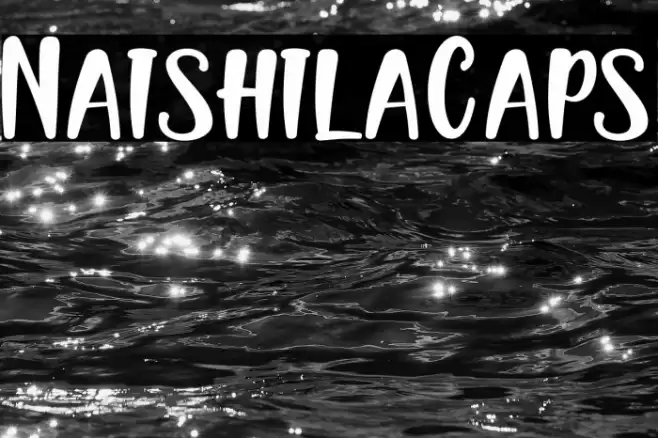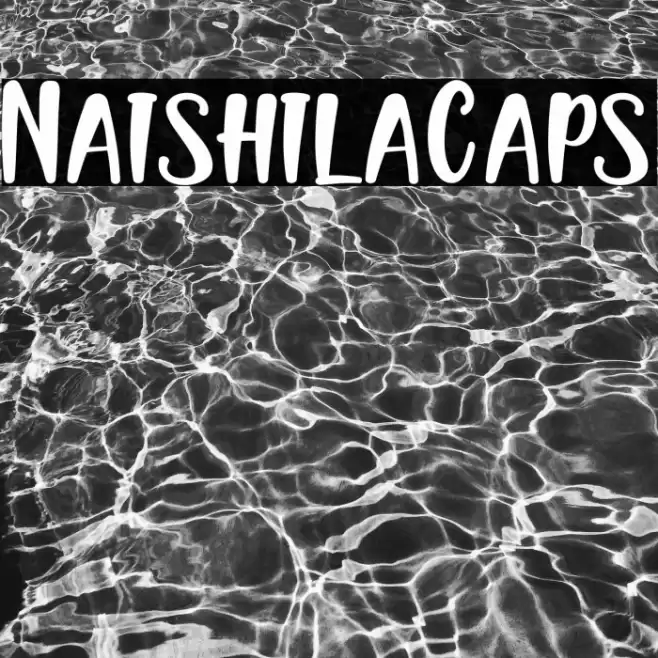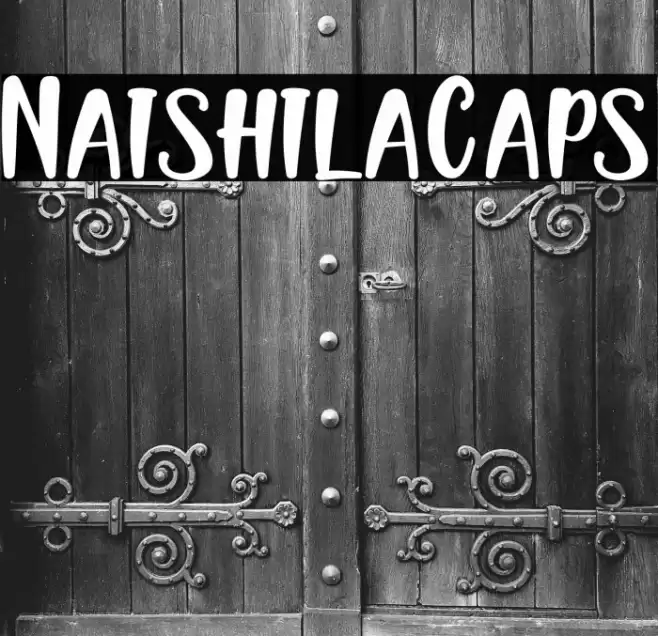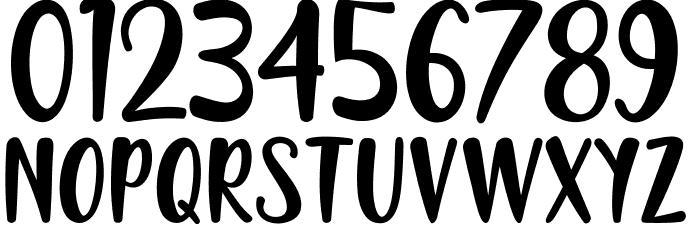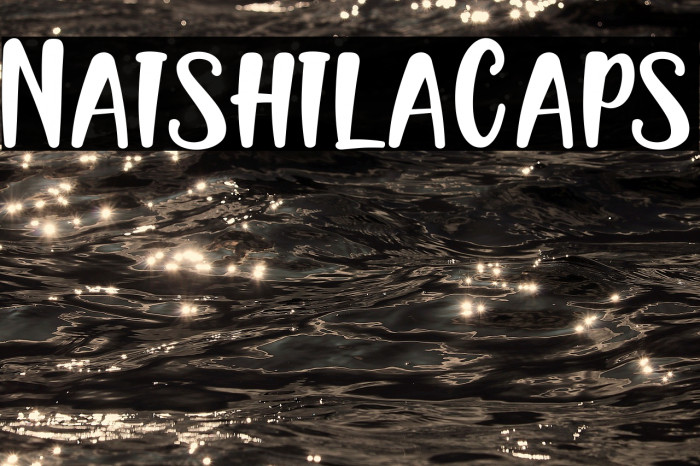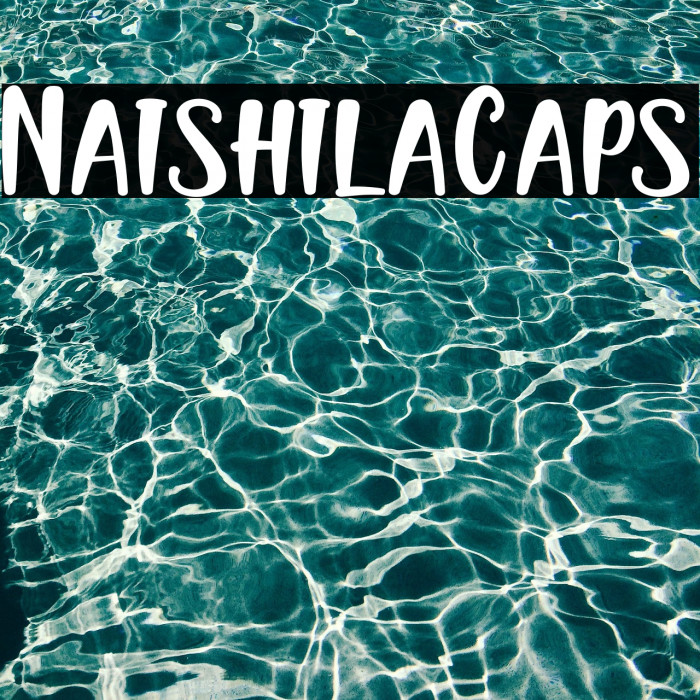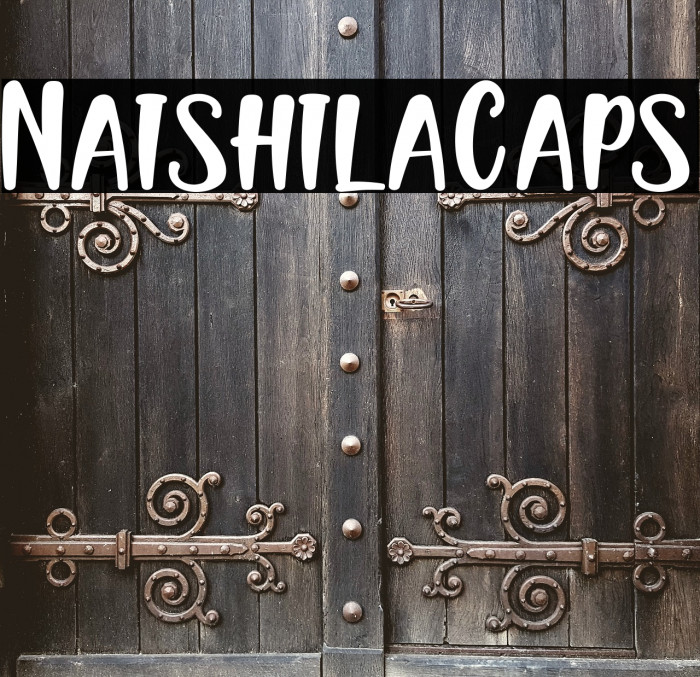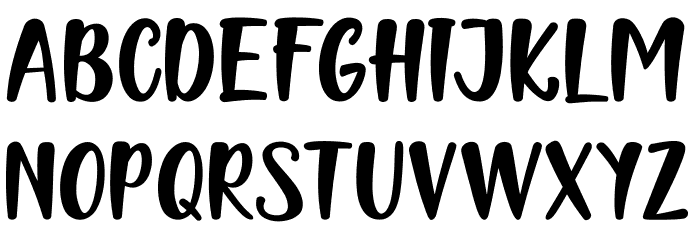
NaishilaCaps Font
NaishilaCaps Description
This font features a bold and playful handwritten style, characterized by its thick strokes and rounded edges. The letters have a casual and friendly appearance, with a slight slant that adds a dynamic feel. The uppercase and lowercase letters are consistent in style, maintaining a cohesive look throughout. Numbers and special characters are also included, matching the overall aesthetic of the font. The design is versatile, making it suitable for a variety of creative projects that require a personal touch.
A bold, playful handwritten font with thick strokes and rounded edges from Comic fonts.
- Proposed Projects: Ideal for greeting cards, posters, children's books, and branding projects that require a friendly and approachable look.
- Overall Style: Playful